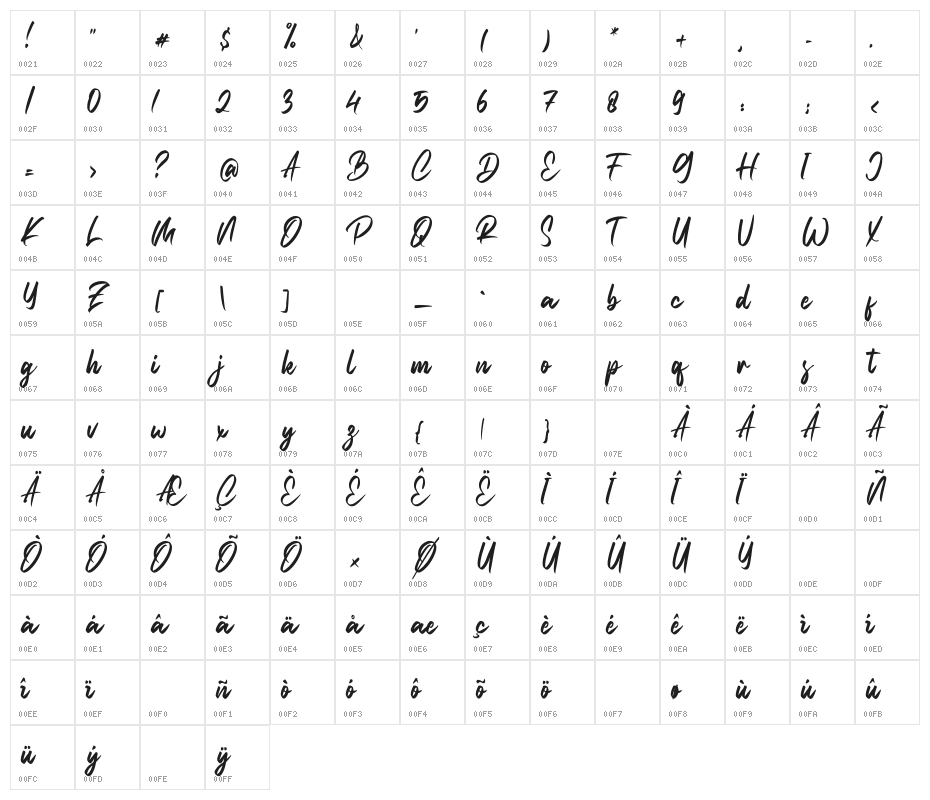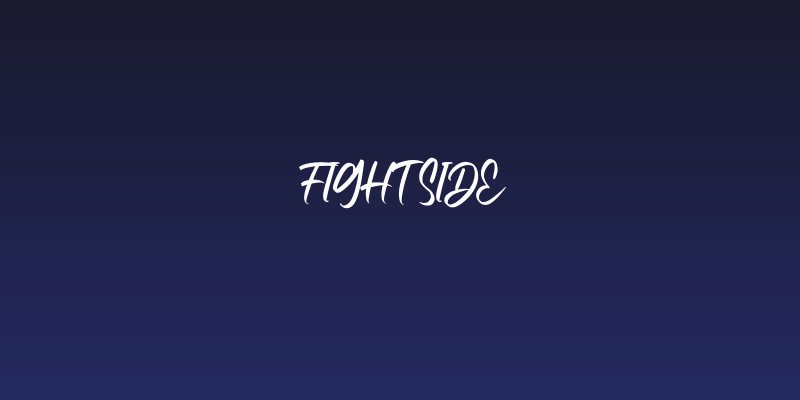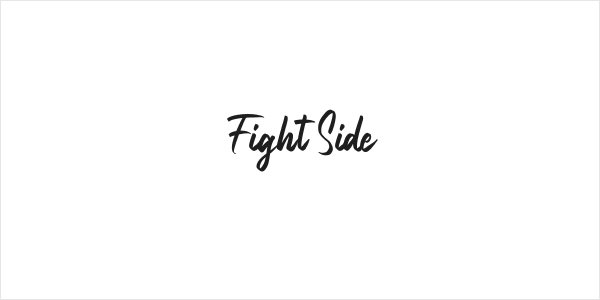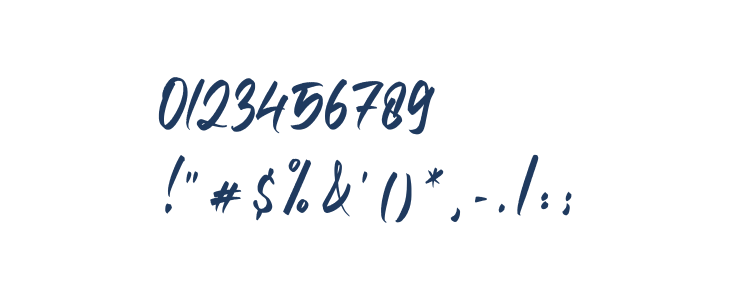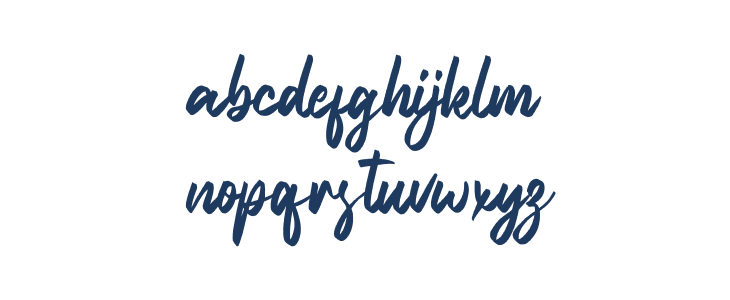
Fight Side Font
Fight Side Description
This font features a bold and expressive handwritten style, characterized by its fluid and dynamic strokes. The letters have a natural flow, with varying thickness that adds a sense of movement and energy. The uppercase letters are particularly striking, with their tall and slightly slanted appearance, while the lowercase letters maintain a consistent and harmonious look. The numbers and special characters are crafted with the same attention to detail, ensuring a cohesive overall design. This font's lively and artistic nature makes it ideal for projects that require a personal touch.